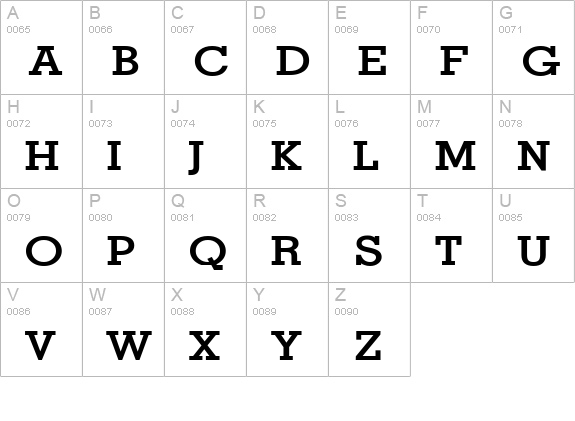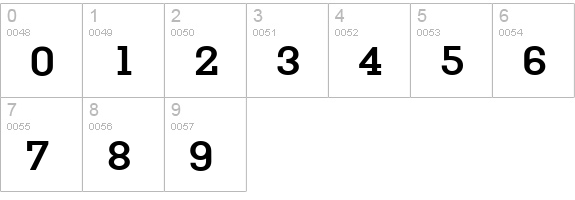
Geo Wide Bold is a strong, high-contrast, extended-width variant in the Geo typeface family \xE2\x80\x94 well suited to headlines, attention-grabbing titles, and strong calls-to-action.